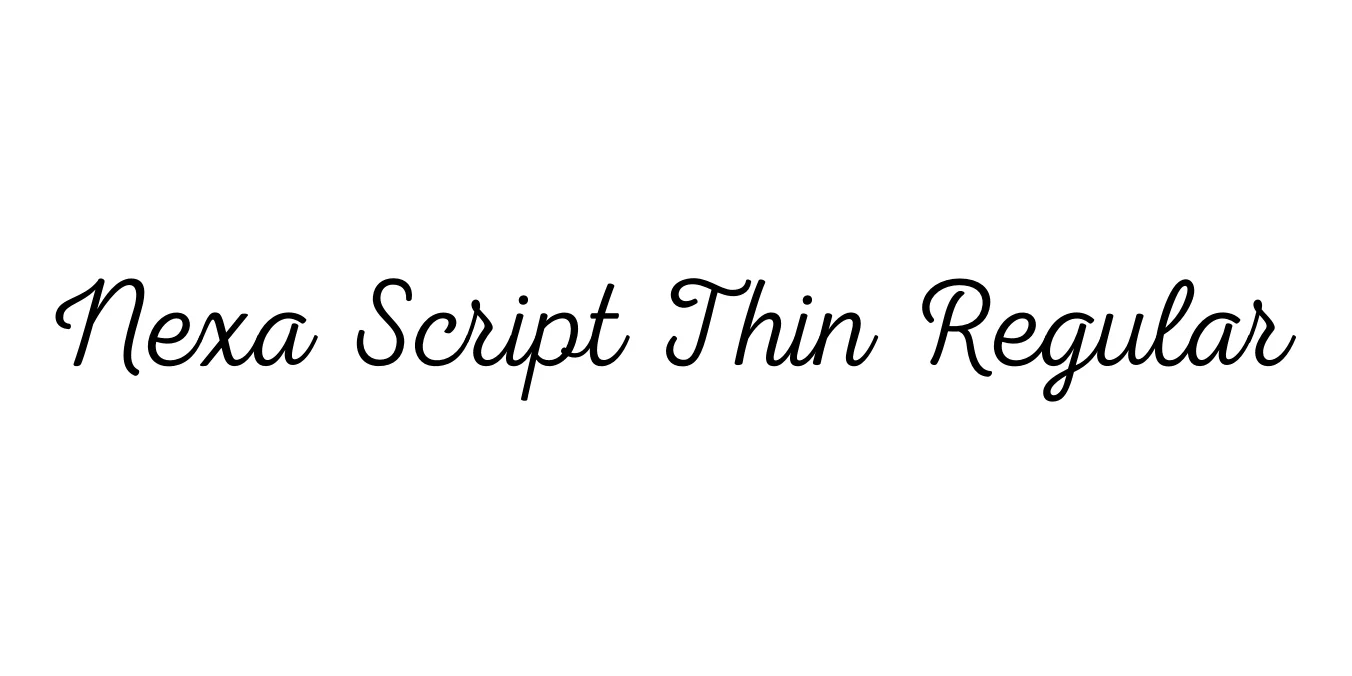
Nexa Script Thin Regular
Designed by Svetoslav Simov
Nexa Script Thin Regular is a sophisticated and contemporary script typeface that stems from the world-renowned Nexa family. Designed by Svetoslav Simov and released via Fontfabric, this font achieves a perfect balance between the rhythmic flow of manual handwriting and the clinical precision of geometric sans-serif architecture. The Thin Regular weight is specifically prized for its delicate, airy appearance, making it a go-to choice for high-end luxury branding and minimalist editorial layouts.
Equipped with a wide range of OpenType features, including ligatures and stylistic alternates, Nexa Script Thin Regular allows for high levels of customization and creative expression. Unlike many script fonts that suffer from legibility issues in lighter weights, Nexa Script maintains exceptional clarity and balance across both digital screens and high-resolution print. It bridges the gap between classical calligraphy and modern digital aesthetics, providing a versatile tool for designers aiming for a personal yet polished feel.
Nexa Script Thin Regular Best Uses
Ideal for high-end logos, cosmetic labels, and luxury brand identities.
Great for sophisticated hero sections, lifestyle blog headers, and portfolio sites.
Perfect for wedding invitations, elegant stationery, and greeting cards.
Frequently used in fashion and beauty marketing campaigns for a delicate touch.